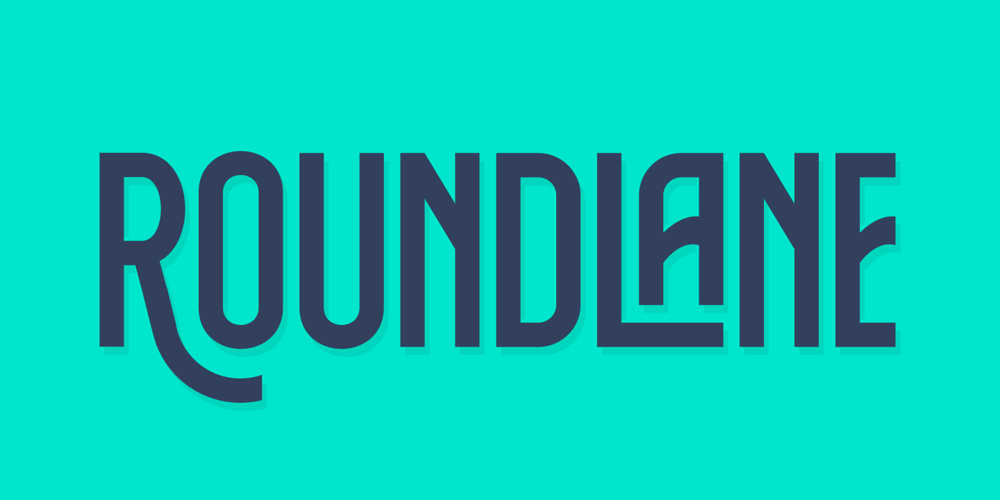
Roundlane Font Family was designed by Reza Rasenda and published by Zealab Fonts Division. Roundlane contains 1 styles and family package options. Roundlane is a font inspired by retro badges antique labels, and includes all-caps, multilingual support, alternates signs, numbers & punctuation.It works well for album covers, video tittles, stickers, clothing brand names, t-shirt designs, badges designs, banner, flyer and more.I can’t wait to see what you guys will come up with with using this font!